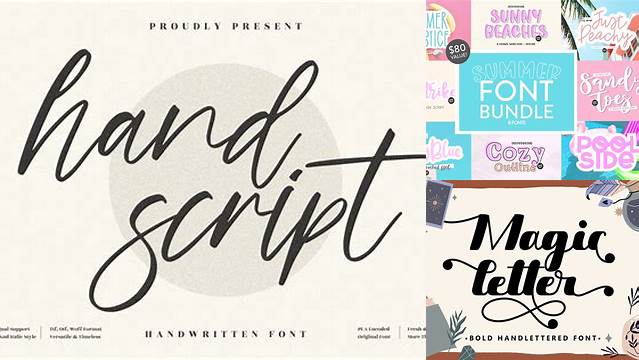
Free Hand Lettered Script Fonts: Download Now!
Hey guys! Are you on the hunt for some amazing hand-lettered script fonts to spice up your projects? Well, you've come to the right place! In this article, we're diving deep into the world of these beautiful fonts and how you can get your hands on them for free. Whether you're a seasoned designer or just starting out, you'll find something here to fuel your creativity. So, let's jump in and explore the magic of hand-lettered script fonts!
Why Choose Hand Lettered Script Fonts?
When it comes to fonts, the options can seem endless. But hand-lettered script fonts have a unique charm that sets them apart. They bring a personal, human touch to your designs, making them feel more authentic and engaging. Unlike standard fonts, which can sometimes feel sterile and generic, hand-lettered fonts mimic the flow and rhythm of natural handwriting. This makes them perfect for projects where you want to convey warmth, elegance, or a personal connection.
The Appeal of Authenticity
In a digital world, the desire for authenticity is stronger than ever. People are drawn to things that feel real and genuine. Hand-lettered script fonts tap into this desire by offering a visual representation of human handwriting. This can make your designs feel more approachable and relatable. Think about it: a wedding invitation with a beautifully scripted font feels much more personal than one with a standard, blocky typeface. The same goes for logos, branding materials, and even social media graphics. When you use a hand-lettered font, you're adding a touch of humanity to your work.
Versatility in Design
Another great thing about hand-lettered script fonts is their versatility. They can be used in a wide range of projects, from elegant invitations and greeting cards to trendy logos and website headers. The key is to choose a font that matches the tone and style of your project. For example, a delicate, flowing script might be perfect for a wedding announcement, while a bolder, more playful script could work well for a children's book. Hand-lettered fonts can also be combined with other font styles to create interesting contrasts and visual hierarchies. Pairing a script font with a clean, sans-serif typeface can create a modern yet personal look.
Evoking Emotions and Styles
Hand-lettered script fonts have the power to evoke different emotions and styles. A swirly, flourished script can feel romantic and elegant, while a messy, textured script can feel more rustic and vintage. The thickness of the strokes, the presence of serifs, and the overall flow of the letters all contribute to the font's personality. When you're choosing a font, think about the message you want to convey and the emotions you want to evoke. A well-chosen hand-lettered font can be a powerful tool for storytelling and visual communication. For instance, consider a brand aiming for a luxurious feel; a carefully chosen, elegant script font can instantly communicate sophistication and high quality. Conversely, a brand targeting a younger audience might opt for a playful, casual script font to appear approachable and fun.
In short, the appeal of hand-lettered script fonts lies in their ability to blend artistry with functionality, adding a unique touch to any design project. Whether you're looking to create a sense of intimacy, elegance, or playfulness, these fonts offer a versatile and expressive solution. So, let’s explore where you can find these gems without spending a dime!
There are several websites dedicated to offering fonts, and many of them have sections specifically for free fonts. Sites like DaFont, FontSpace, and Creative Fabrica offer a wide selection of hand-lettered script fonts that you can download without paying a penny. These platforms often have user-friendly interfaces, making it easy to browse and filter fonts based on style, license, and other criteria. When using these sites, always check the license information provided by the font designer. This will ensure that you're using the font legally and ethically. DaFont, for example, is a treasure trove of fonts contributed by designers from around the world, making it a continually updated resource for free hand-lettered fonts.
Creative Market's Free Goods
Creative Market is a fantastic resource for design assets, including fonts. They offer a rotating selection of free goods every week, which often includes hand-lettered script fonts. This is a great way to discover new fonts and expand your collection without breaking the bank. To access Creative Market's free goods, you'll need to create an account, but it's well worth it for the quality and variety of resources they offer. The free goods section is updated regularly, so it’s worth checking back often to see what’s new. Creative Market is especially useful for finding fonts that have a more polished and professional feel, making them suitable for commercial projects.
Font Bundles and Free Font Sites
Websites like FontBundles.net also provide hand-lettered script fonts and often have free font sections. These sites may offer font bundles, where you can get a collection of fonts for a discounted price, or even completely free for a limited time. This can be a cost-effective way to acquire a diverse range of fonts for your projects. In addition to these, smaller, independent font websites and blogs often feature free hand-lettered fonts. Keep an eye out for these hidden gems by subscribing to design newsletters and following design blogs. These sources sometimes offer exclusive freebies that you won't find anywhere else. Remember, though, to always verify the licensing terms, regardless of the source.
Checking the License
It's worth reiterating the importance of checking the font license. Licenses can vary widely, with some fonts being free for both personal and commercial use, while others may only be free for personal projects. Misusing a font can lead to legal issues, so it’s crucial to understand the terms. Look for license information on the download page or in a text file included with the font. If you’re unsure, it’s always a good idea to contact the font designer directly for clarification. By taking these precautions, you can confidently use free hand-lettered fonts in your projects without worrying about copyright infringement.
Finding the perfect hand-lettered script font doesn't have to be expensive. With a bit of research and attention to licensing, you can build a collection of beautiful fonts that will elevate your designs. So, go ahead and explore these resources, and let your creativity flow!
Tips for Using Hand Lettered Script Fonts Effectively
Okay, so you've downloaded some gorgeous hand-lettered script fonts. Now what? Using these fonts effectively is key to making your designs shine. It's not just about slapping a script font onto your project and calling it a day. You need to consider readability, context, and how the font works with other elements in your design. Let's dive into some tips for using hand-lettered fonts like a pro:
Prioritize Readability
First and foremost, ensure your font is readable. Hand-lettered script fonts, with their elaborate swirls and flourishes, can sometimes be tricky to read, especially in large blocks of text. Therefore, they're best used for headings, titles, logos, and short phrases. Avoid using them for body text or lengthy paragraphs, as this can strain the reader's eyes. The goal is to capture attention and convey a message, not to confuse the audience. When selecting a hand-lettered font, consider the spacing between letters and the overall clarity of the design. A font might look beautiful on its own, but if it's difficult to decipher in context, it's not the right choice.
Consider the Context
The context of your project should heavily influence your font choice. A playful, whimsical script might be perfect for a children's book or a birthday invitation, but it would likely feel out of place in a formal business setting. Think about the message you're trying to convey and the audience you're targeting. A sophisticated, elegant script can work wonders for wedding invitations, luxury branding, or high-end product packaging. On the other hand, a more casual, textured script might be ideal for a rustic-themed project or a handmade goods brand. Matching the font to the context creates a cohesive and impactful design. Also, consider the medium in which the design will be displayed. A font that looks great on screen might not translate well to print, and vice versa.
Pairing Fonts Wisely
Hand-lettered fonts often work best when paired with simpler, more neutral fonts. A classic pairing is a script font for headings and a sans-serif font for body text. This creates a visual hierarchy and ensures readability. Avoid pairing multiple script fonts together, as this can look cluttered and overwhelming. The key is to create contrast and balance. When choosing a hand-lettered font, think about the other fonts you'll be using in your project. A clean, modern sans-serif font like Open Sans or Montserrat can complement a script font beautifully. Another approach is to use a serif font, like Times New Roman or Georgia, for a more traditional and elegant look. Experiment with different combinations to find what works best for your design.
Use Sparingly and Strategically
A little hand-lettered script font can go a long way. Overusing script fonts can diminish their impact and make your design look busy. Use them sparingly, focusing on key elements like headings, logos, or call-to-action buttons. When used strategically, a hand-lettered font can add a touch of personality and flair to your design without overwhelming it. Think of the font as a decorative element rather than the primary source of communication. It should enhance your message, not detract from it. By using script fonts selectively, you can create a design that is both visually appealing and highly effective.
Adjust Letter Spacing and Kerning
Finally, pay attention to letter spacing and kerning. Hand-lettered script fonts sometimes have unique letterforms that require manual adjustments to ensure they flow smoothly together. Kerning is the process of adjusting the space between individual letters to create a visually harmonious appearance. Letter spacing, on the other hand, refers to the overall space between all letters in a word or phrase. Many design software programs offer tools for adjusting kerning and letter spacing. Experiment with these settings to achieve the perfect balance and readability. A well-kerned hand-lettered font will look polished and professional, while poorly kerned text can look awkward and amateurish. Taking the time to fine-tune these details can make a significant difference in the overall impact of your design.
By following these tips, you can harness the power of hand-lettered script fonts to create stunning and effective designs. Remember, it's all about balance, readability, and context. So, go ahead and experiment, and have fun with it!
Conclusion: Unleash Your Creativity with Free Hand Lettered Script Fonts
So, guys, we've covered a lot about hand-lettered script fonts! From their unique appeal and versatility to where you can find them for free and how to use them effectively, you're now well-equipped to add these beautiful fonts to your design arsenal. Remember, hand-lettered fonts can bring a personal, authentic touch to your projects, making them more engaging and memorable. Whether you're designing a logo, creating invitations, or crafting social media graphics, the right script font can make all the difference.
The world of hand-lettered script fonts is vast and varied, offering endless possibilities for creative expression. By exploring the resources we've discussed, such as reputable font websites, Creative Market's free goods, and font bundles, you can build a diverse collection of fonts without spending a fortune. Just remember to always check the licensing terms and ensure you're using the fonts legally and ethically.
Using hand-lettered fonts effectively involves careful consideration of readability, context, and font pairing. Prioritize clarity by using script fonts sparingly and for key elements like headings and titles. Match the font to the tone and style of your project, and pair it with simpler fonts for optimal readability. Don't forget to adjust letter spacing and kerning for a polished and professional look.
Ultimately, the goal is to unleash your creativity and create designs that resonate with your audience. Hand-lettered script fonts are a powerful tool for achieving this, adding a touch of humanity and artistry to your work. So, go ahead, download some free fonts, experiment with different styles, and let your imagination run wild. The possibilities are endless, and the results can be truly stunning. Happy designing!